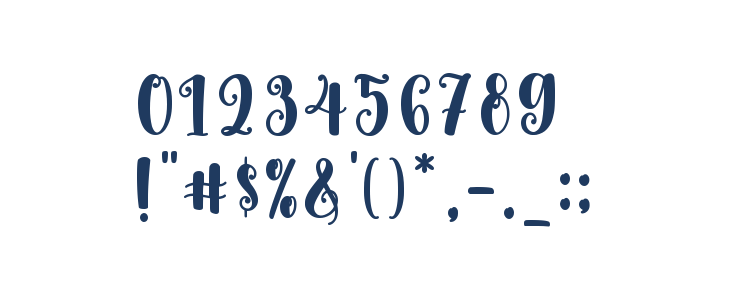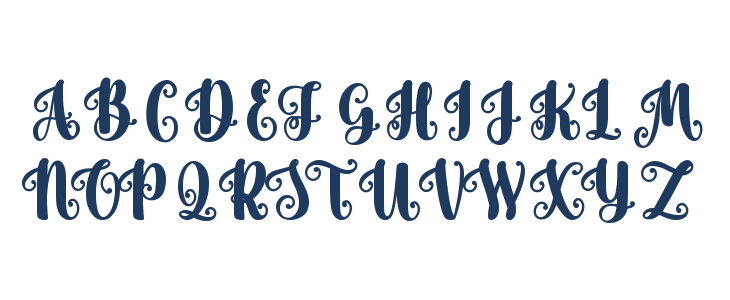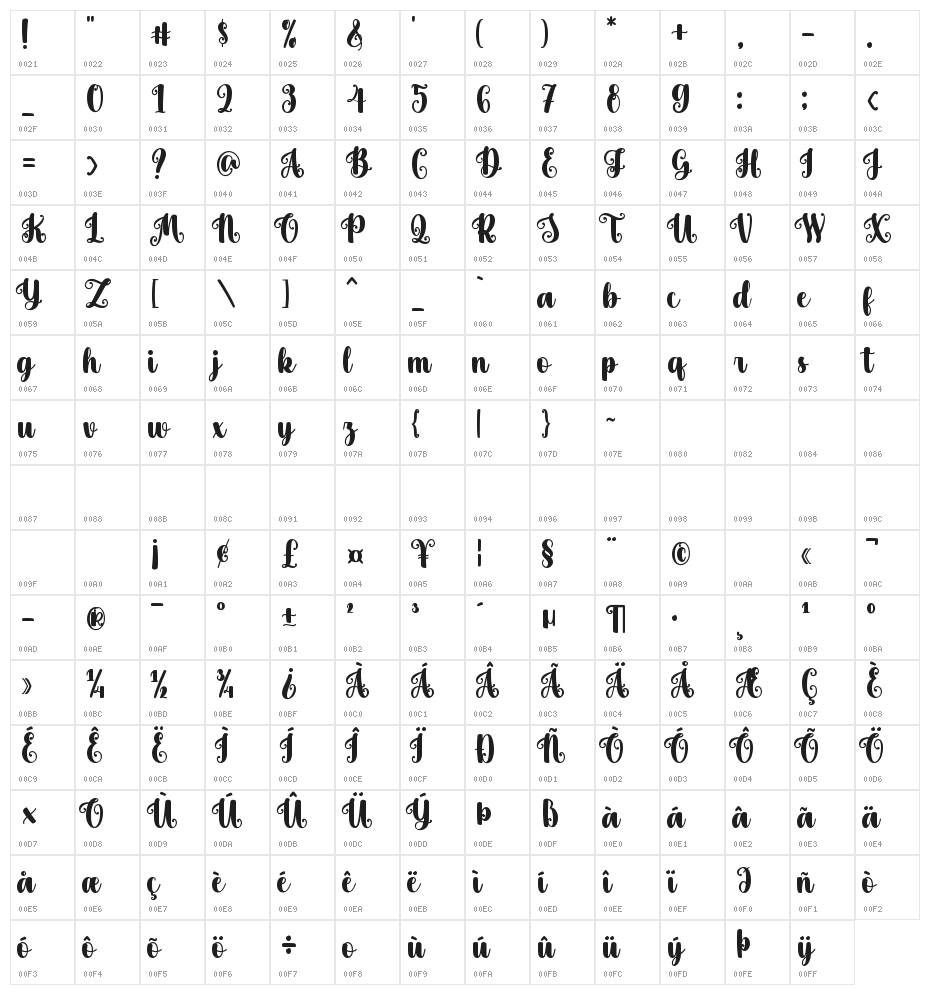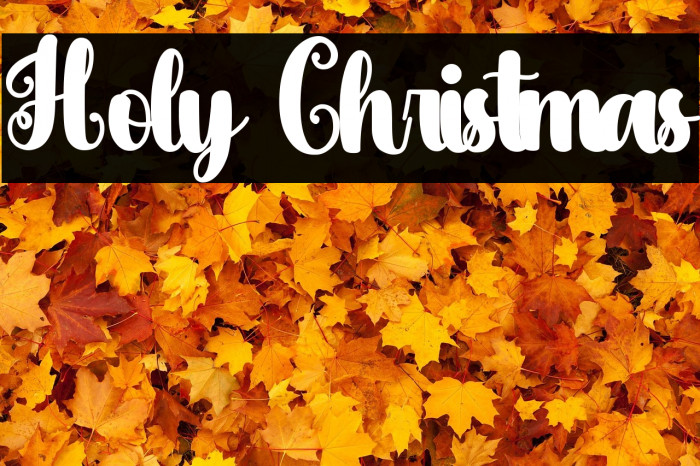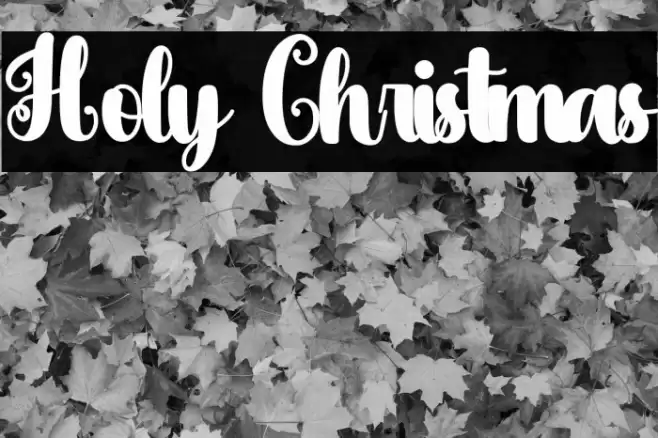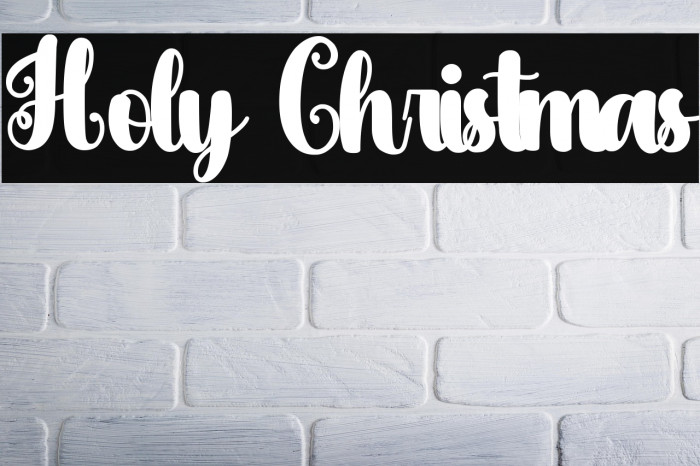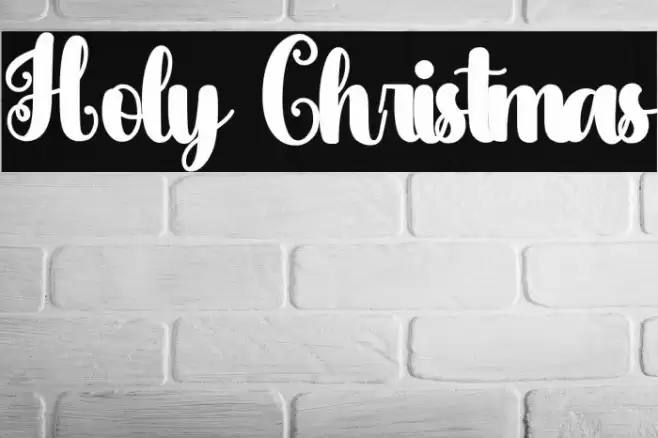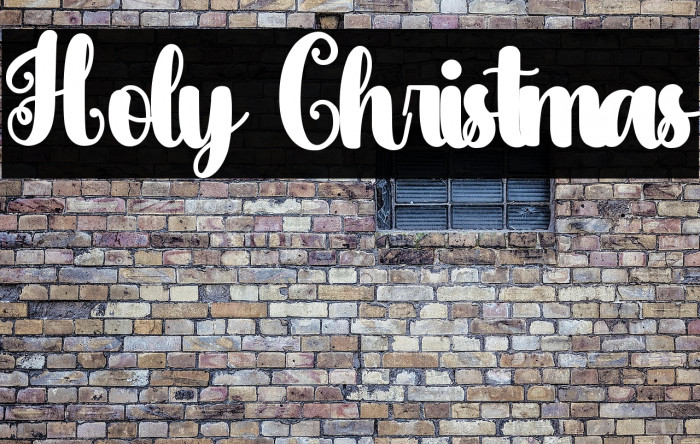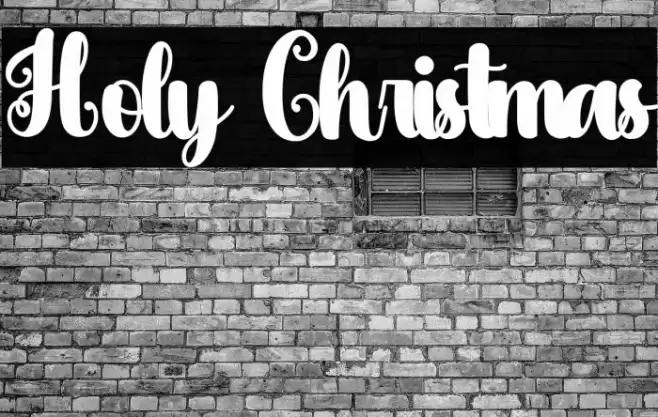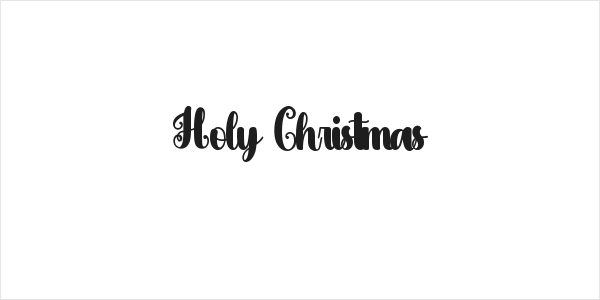
Holy Christmas Font
Holy Christmas Description
A playful, decorative script font with bold, rounded strokes and whimsical swashes on both uppercase and lowercase letters. The characters have a hand-lettered, festive appearance with high contrast between thick and thin lines, and the numerals and punctuation are equally ornate.
| Overall Style | Decorative, Festive, Playful |
| Use Case | Headlines, Logos, Greeting cards, Posters |
| Proposed Projects | Holiday cards, invitations, festive branding, event posters, seasonal packaging. |